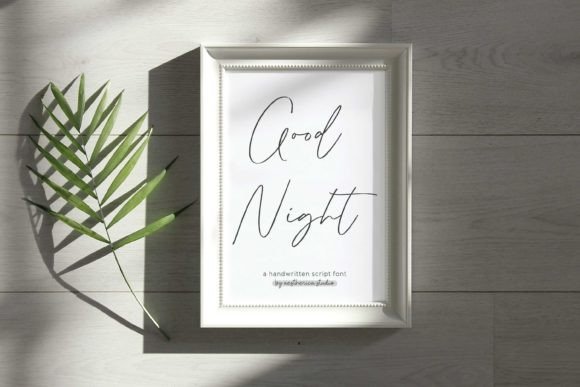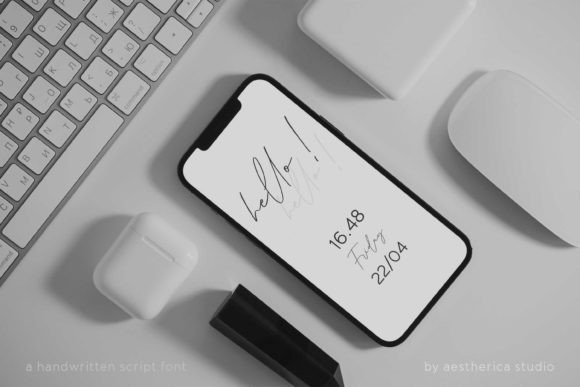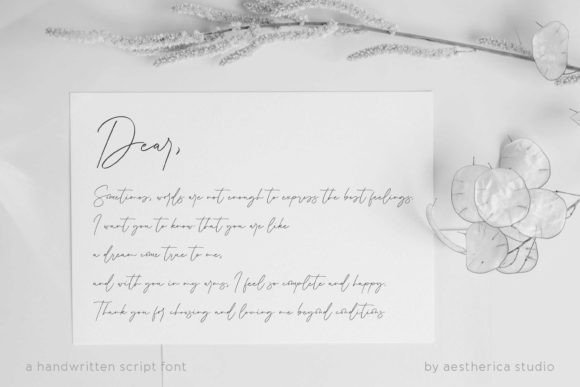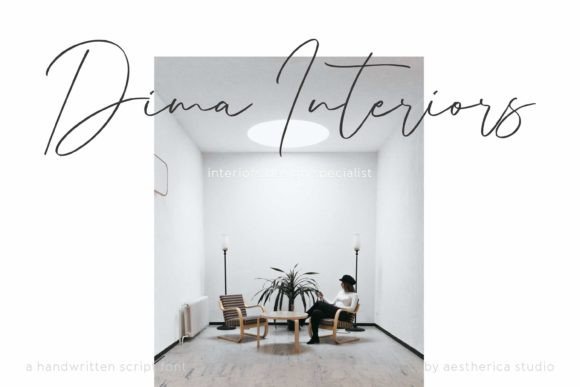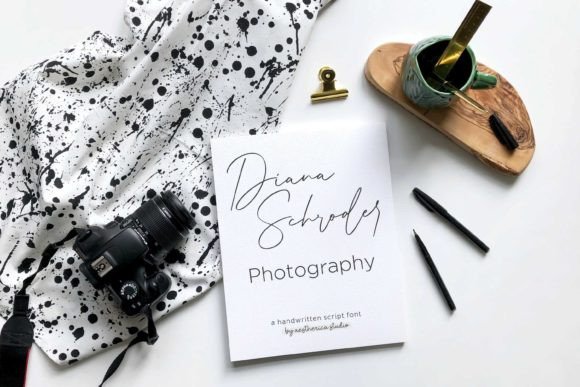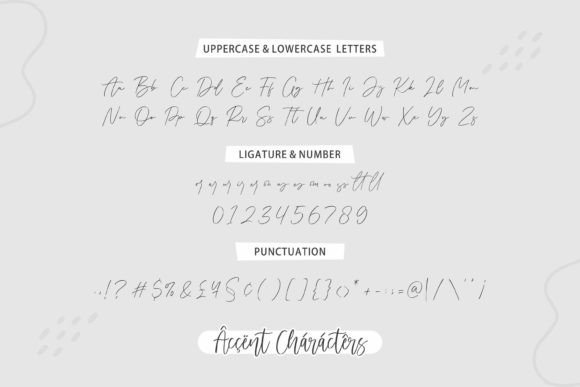
Introducing Adorne Font: Elevate Your Designs with a Touch of Elegance
In the world of typography, a well-crafted font can make all the difference in elevating your designs from ordinary to extraordinary. Adorne, a beautiful handwritten script font, is here to bring a natural and stylish flow to your creative projects. With its unique charm and versatility, Adorne is perfect for designers and crafters looking to add a personal touch to their branding, marketing materials, and products.
The Characteristics of Adorne Font
Adorne is a handwritten script font that boasts a natural and effortless look, making it ideal for designs that require a personal and stylish touch. Its flowing curves and subtle variations in line width give it a human touch, reminiscent of handwritten text. This font is meticulously crafted to ensure that it is both elegant and legible, making it suitable for a wide range of applications.
Perfect for Personal Branding
For individuals and businesses looking to establish a strong brand identity, Adorne offers a unique opportunity to stand out from the crowd. Its distinctive style can be used consistently across various platforms, from logos and social media posts to product packaging and stationery. By incorporating Adorne into your branding strategy, you can create a cohesive and recognizable visual identity that resonates with your target audience.
Versatile Applications of Adorne Font
One of the key benefits of Adorne is its versatility. This font can be used in a multitude of design projects, including:
• Branding Projects: Create a lasting impression with a custom logo or brand signature that showcases your personality and style.
• Wedding Designs: Add a touch of romance and elegance to your wedding invitations, stationery, and decor.
• Social Media Posts: Elevate your online presence with eye-catching graphics and engaging content.
• Advertisements: Stand out in a crowded market with bold and stylish typography.
• Product Packaging: Create beautiful and functional packaging that reflects your brand’s personality.
• Product Designs: Incorporate Adorne into your product designs, such as labels, tags, and instructional materials.
• Photography: Add a watermark or overlay text to your photos with a touch of elegance.
• Invitations and Stationery: Create personalized and stylish invitations, greeting cards, and stationery.
Why Choose Adorne Font?
• Unique Style: Adorne offers a distinctive and stylish look that sets it apart from more traditional fonts.
• High Legibility: Despite its elegant appearance, Adorne remains highly legible, making it suitable for body text and headlines.
• Customizable: With its range of weights and styles, Adorne can be tailored to suit your specific design needs.
Adorne font is a beautiful and versatile handwritten script that can elevate your designs to new heights. Its natural and stylish flow makes it perfect for personal branding, creative projects, and marketing materials. Whether you’re a designer, crafter, or business owner, Adorne offers a unique opportunity to add a touch of elegance and sophistication to your work. So why wait? Discover the power of Adorne and take your designs to the next level.